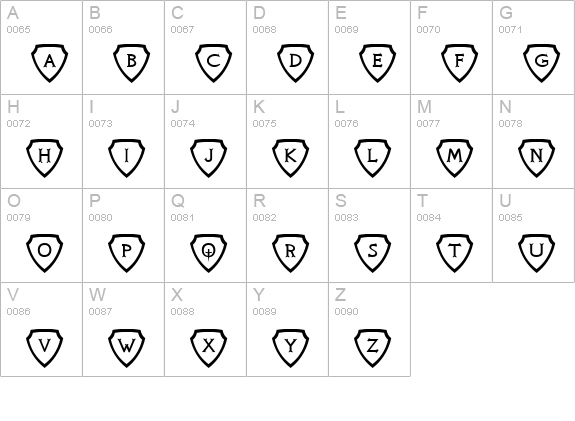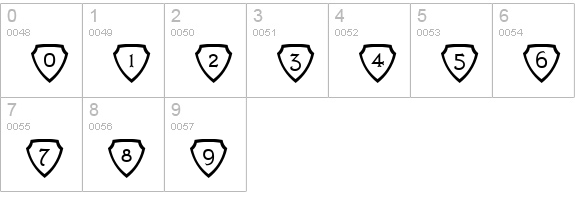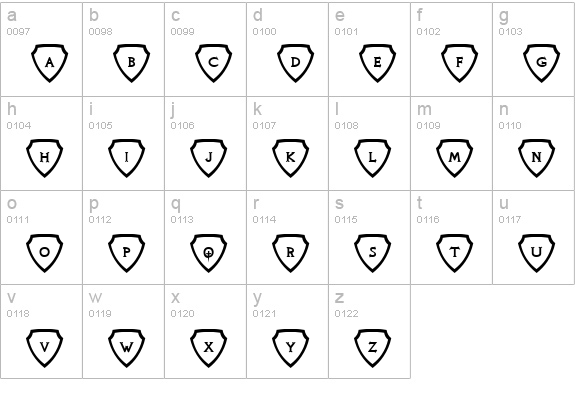
Knights Quest Shielded Font Details
Introducing Knights Quest Shielded font, a captivating and versatile typeface that brings a touch of medieval charm to your projects. This unique font features intricate shield designs incorporated into each letter, adding a sense of nobility and valor to your text. Knights Quest Shielded font is perfect for creating themes related to knights, castles, fantasy, and adventure. Whether you are designing invitations, posters, or branding materials, this font will surely make a bold statement and capture the imagination of your audience. The best part? Knights Quest Shielded font is available for free download at FontsMarket.com. Embrace the spirit of chivalry and embark on a creative journey with this remarkable font at your fingertips. Download now and let your designs shine with the grandeur of Knights Quest Shielded font.